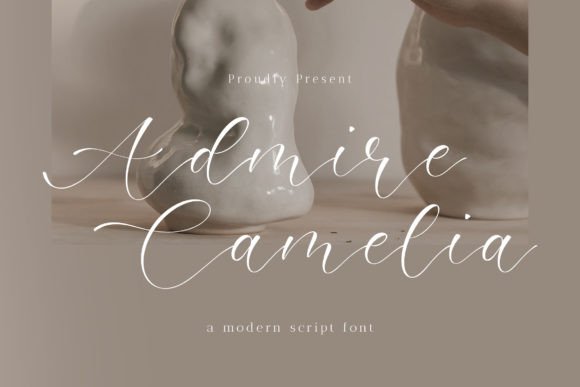
Discover the Timeless Beauty of Admire Camelia Font
Do you remember the first time you saw a handwritten note from a loved one? The way the words seemed to dance across the page, filled with personality and charm? That’s the magic of handwritten fonts, and Admire Camelia Font is no exception. This elegant script font is designed to evoke the same sense of warmth and connection in your designs.
With its delicate, feminine energy, Admire Camelia Font is the perfect addition to any designer’s library. Whether you’re working on a wedding invitation, a children’s book, or a social media campaign, this font has the potential to elevate your creations and make them truly unforgettable. By incorporating Admire Camelia Font into your designs, you can add a touch of sophistication and whimsy that will leave a lasting impression on your audience.
Admire Camelia Font Key Features
- Font Family: Admire Camelia, Admire Camelia Italic, Admire Camelia Bold, Admire Camelia Bold Italic
- Unique Characteristic: This font features a unique blend of elegance and sophistication, making it suitable for high-end branding, luxury packaging, and upscale advertising
Admire Camelia Font Review
Overall, I’d say the Admire Camelia Font is a lovely addition to any design project. ✨ Here are a few things I think work well:
- It has a unique, elegant feel that’s perfect for formal or professional designs.
- The font’s subtle curves and rounded edges make it easy to read, even at smaller sizes.
- It’s highly legible, which is essential for any font used in large blocks of text.
However, there are a few limitations to keep in mind: ⚠️
- The font’s style, while elegant, can come across as a bit too generic or unoriginal in some cases.
- It may not be the best choice for projects that require a lot of emphasis or boldness, as it tends to fade into the background.
- The font’s versatility is somewhat limited, as it’s best suited for formal or professional designs.
Overall, I think the Admire Camelia Font is a solid choice for the right project. While it may not be the most exciting or bold font out there, it’s a reliable and elegant option that’s sure to please.
The Admire Camelia font is ideal for creating elegant and sophisticated designs, such as:
- Wedding invitations
- Business cards
- Brochures
- Menus
To get the most out of the Admire Camelia font, use it sparingly and in combination with other elegant fonts. Experiment with different font sizes and styles to create visual interest. Also, consider using the font in combination with high-quality images or graphics to add depth and sophistication to your design.
Alternatives to Admire Camelia Font for Designers
Playfair Display is an elegant serif font that works well for titles and headings. It’s a great choice for luxury brands, magazines, and high-end websites. Playfair Display has a more classic feel compared to Admire Camelia Font, which has a more modern and minimalist look.
Pacifico is a beautiful, handwritten font that’s perfect for adding a touch of sophistication to your designs. It’s ideal for branding, invitations, and any design that needs a personal and creative feel. Pacifico has a more relaxed and casual tone compared to Admire Camelia Font, which has a more formal and professional look.
Great Vibes is a modern and elegant script font that’s great for titles, headings, and body text. It’s a versatile font that works well for various industries, from fashion to technology. Great Vibes has a more dynamic and energetic feel compared to Admire Camelia Font, which has a more subtle and understated look.